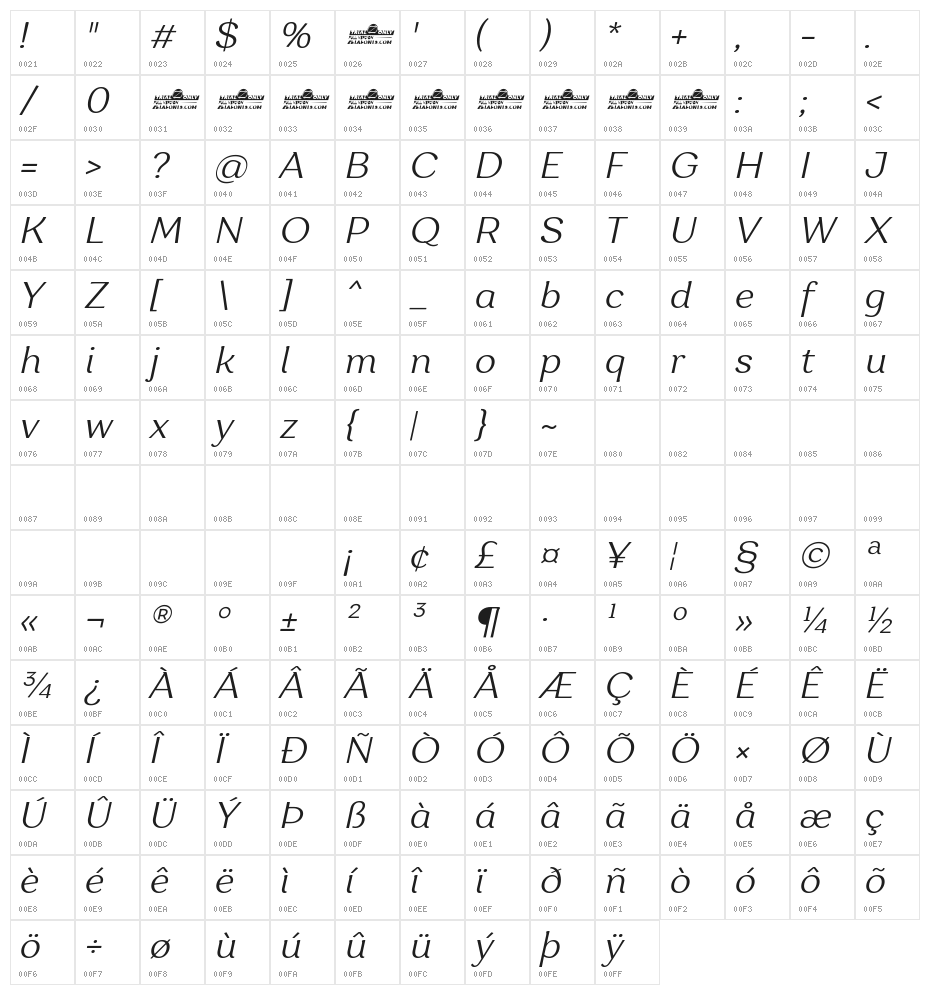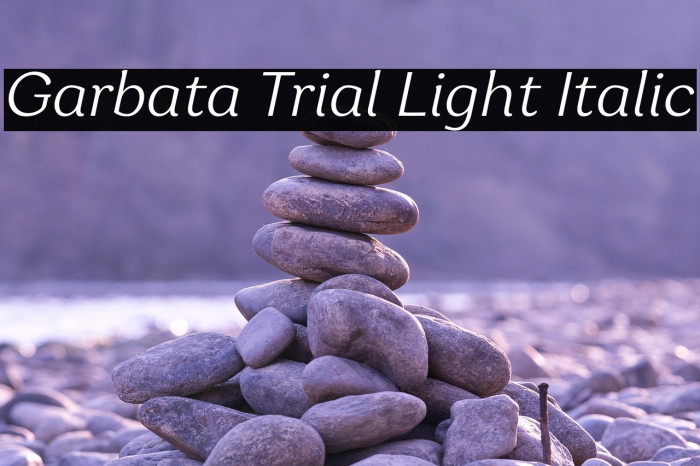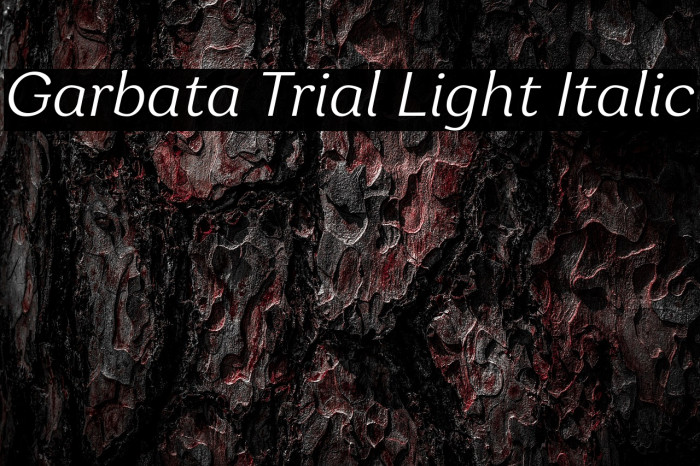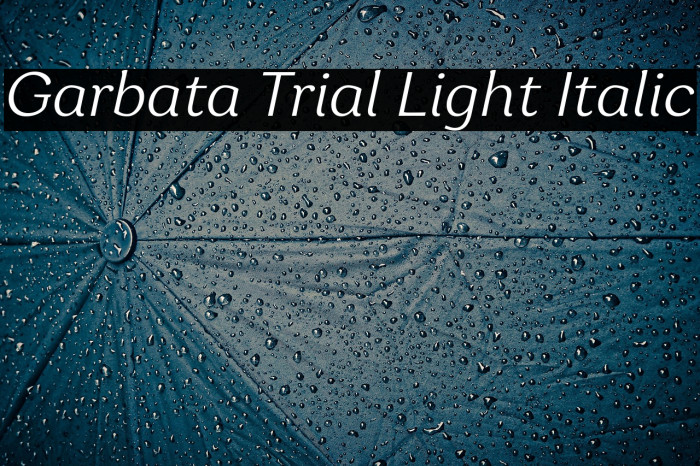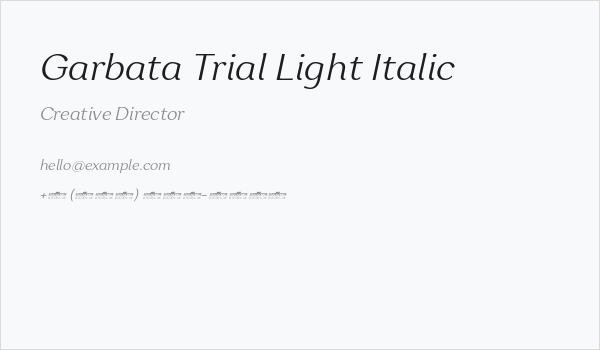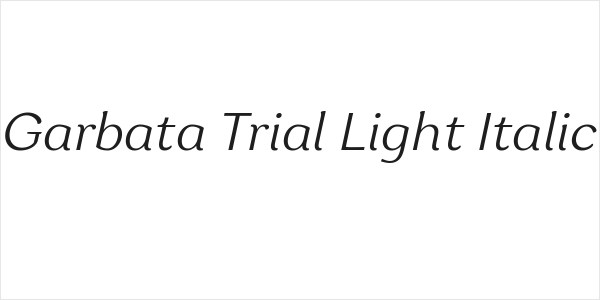
Garbata Trial Light Italic Font
Garbata Trial Light Italic Description
This font features a sleek and elegant design with a light and airy feel. The characters are slightly italicized, giving them a dynamic and sophisticated appearance. The strokes are thin and consistent, contributing to a refined and modern aesthetic. The uppercase and lowercase letters maintain a harmonious balance, while the numerals and special characters are crafted with precision. This font exudes a sense of professionalism and style, making it suitable for a variety of design applications.
Proposed ProjectsIdeal for branding, editorial design, fashion magazines, and elegant invitations.